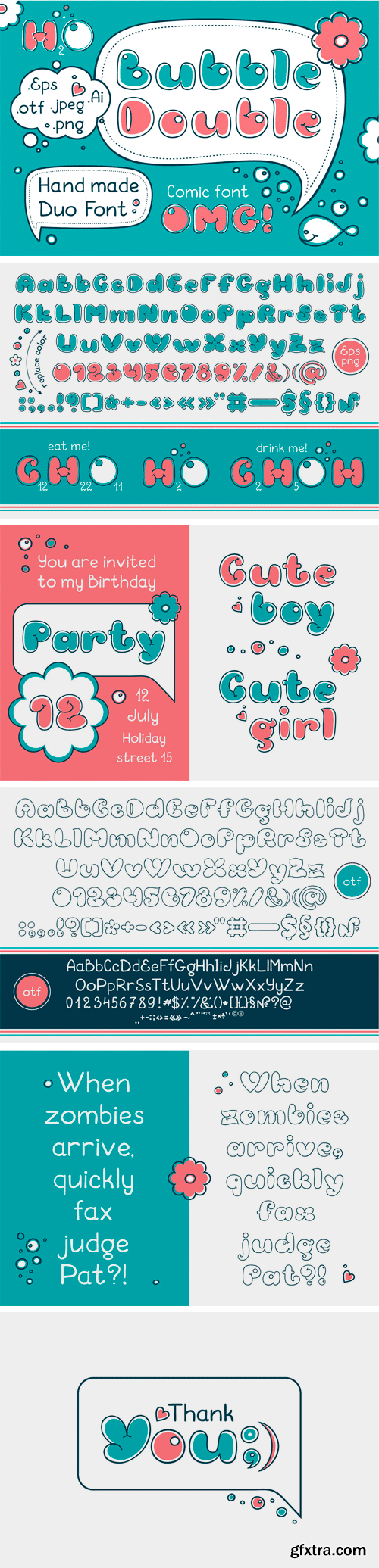
Handwritten calligraphy lettering for phrase and quotes. Display cartoon font. Perfect for children's invitations, birthday cards, phrases and quotes, print on textiles and t-shirts, for school office items.